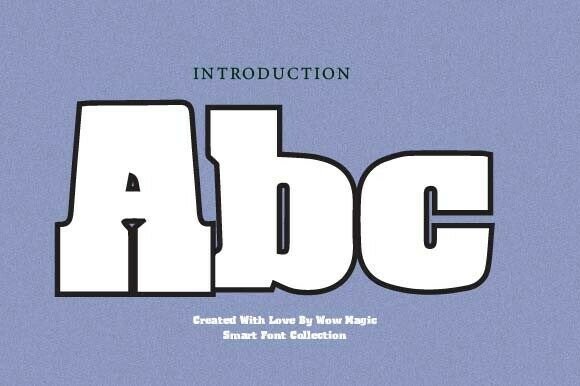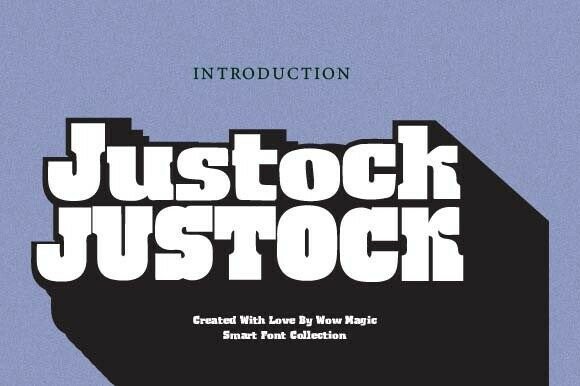
Introduction to Justock Font
Justock – Bold Block Display Font Justock is a bold block display font with a strong, solid, and confident personality.
With its heavy letterforms and compact style, Justock works beautifully for logos, branding, posters, packaging, sports graphics, headlines, merchandise, and promotional designs Its bold construction makes every word feel assertive, attention-grabbing, and easy to remember.
Key Features of Justock Font
Why Choose Justock Font?
Justock Font offers exceptional quality and versatility, making it a valuable addition to your design toolkit. Whether you’re creating for personal projects or commercial use, Justock Font delivers professional results.